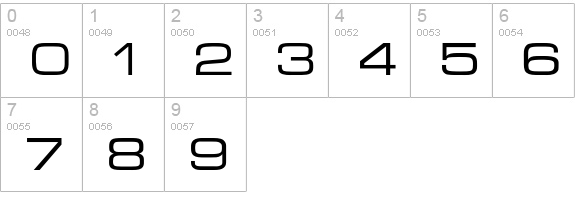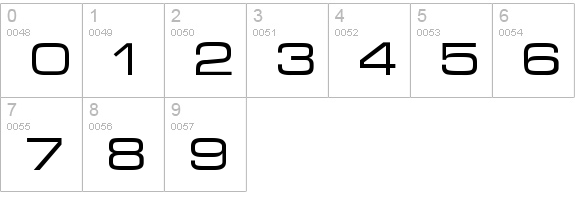
MicroTechnicExt Font Details
MicroTechnicExt font is a sleek and modern typeface designed for digital and technical projects. This font features clean lines and sharp edges, making it perfect for conveying a sense of precision and efficiency. The geometric design of MicroTechnicExt gives it a futuristic and high-tech look, making it ideal for use in technology-related designs. What makes MicroTechnicExt even better is that it is completely free to download at FontsMarket.com. Whether you are working on a website, app, or any other project that requires a contemporary and professional font, MicroTechnicExt is sure to elevate your design. Download it now and add a touch of sophistication to your next project!